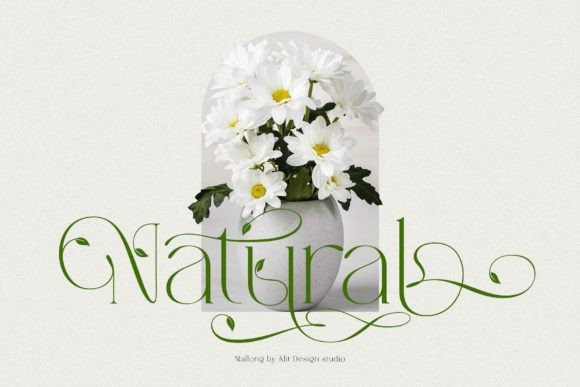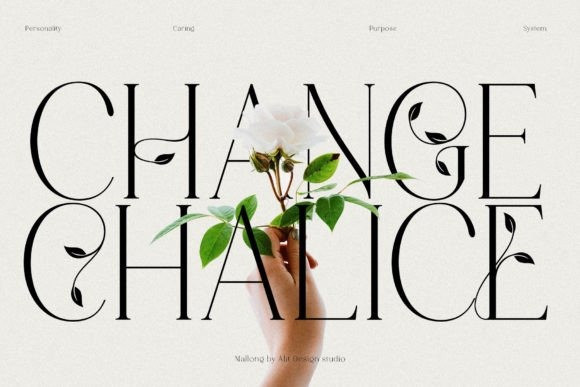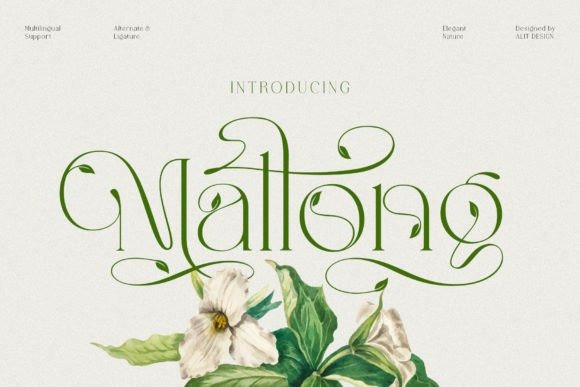
Mallong Font
Mallong Serif font is a serif typeface that embodies elegance and naturalness. Its design features classic serif details, combined with graceful curves and a unique leaf-outline swash, that adds a touch of beauty to each character. This font is perfect for creating sophisticated designs with a touch of organic charm. Keep in mind that the font is PUA encoded, meaning that you can access all delightful glyphs and swashes effortlessly.